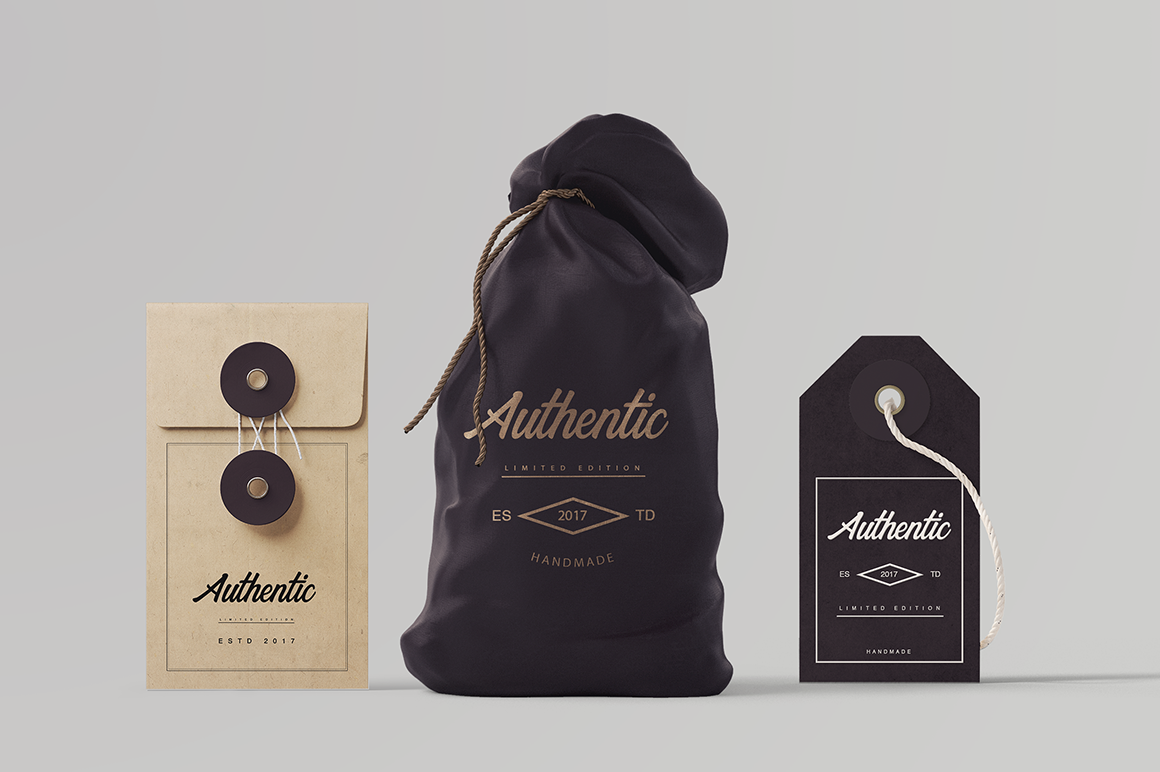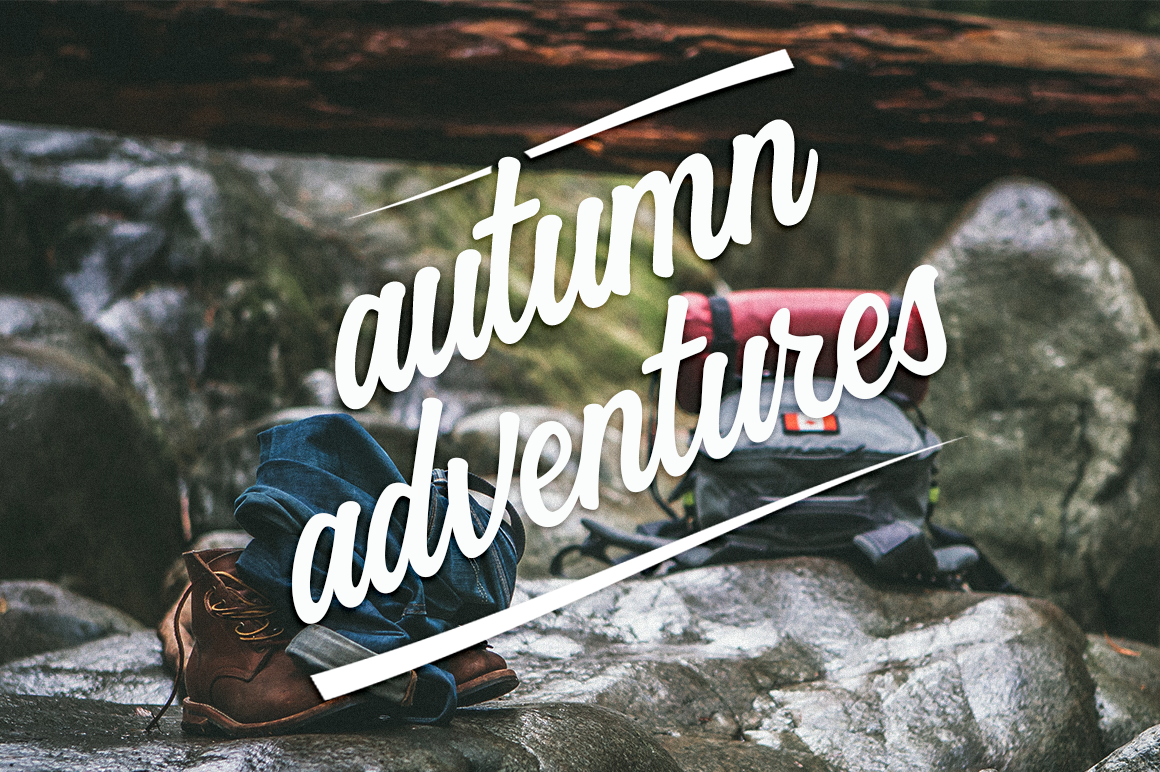
Alaska Font
db-ku.com - Script & Handwritten -- Alaska is a bold, versatile font. It’s fluid and very easy to read, giving you loads of freedom when designing your next project.